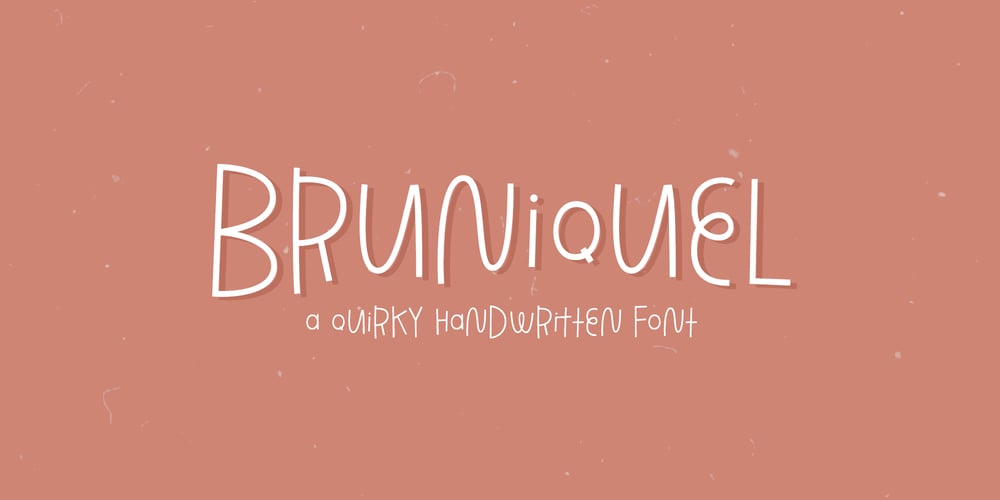
Bruniquel Font Family was designed by Dmitrii Chirkov and published by Supfonts. Bruniquel contains 1 styles and family package options. Bruniquel is a quirky handwritten font perfect for headings, flyer, greeting cards, product packaging, book cover, printed quotes, logotype, apparel design, album covers, etc., or just adding a handwritten touch to any project!Font is an open type with clean shapes and precise kerning. It includes ligatures encoded by the PUA.Language support: All European languagesDon’t forget to subscribe so you don’t miss out on the new awesome fontsDima